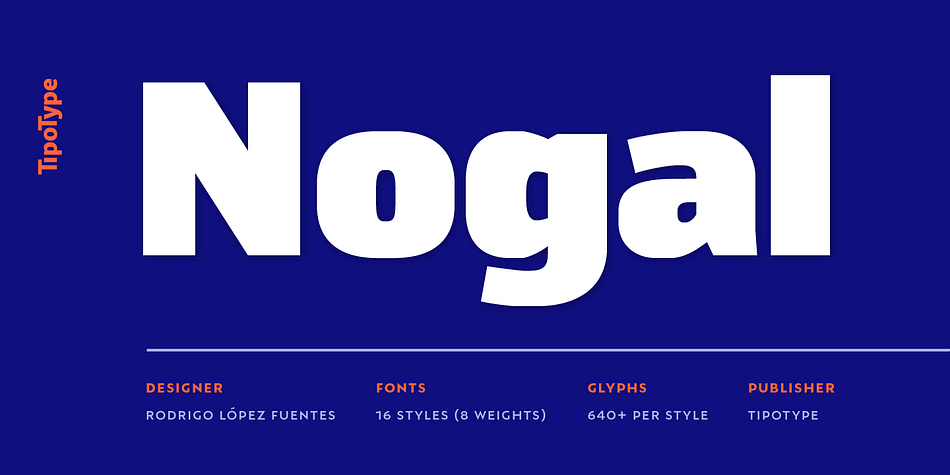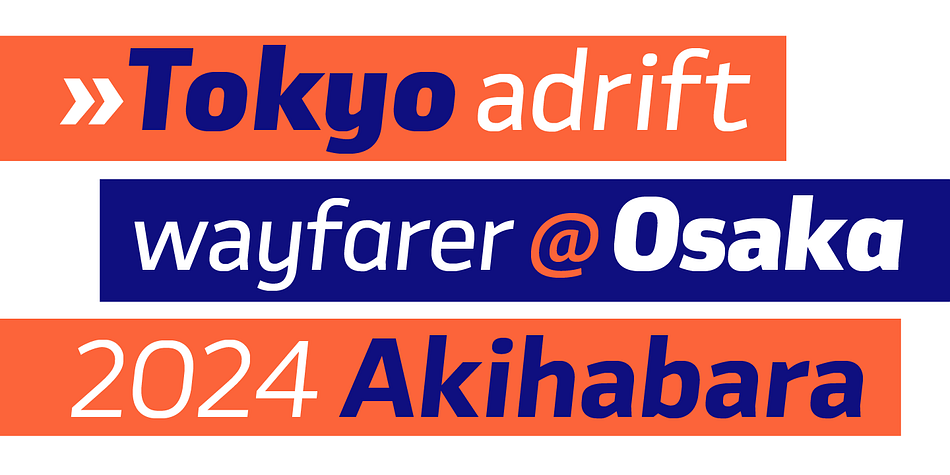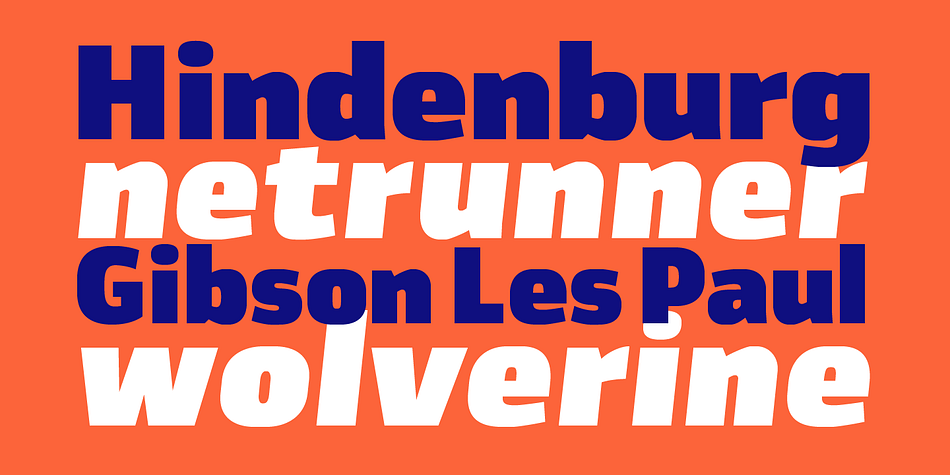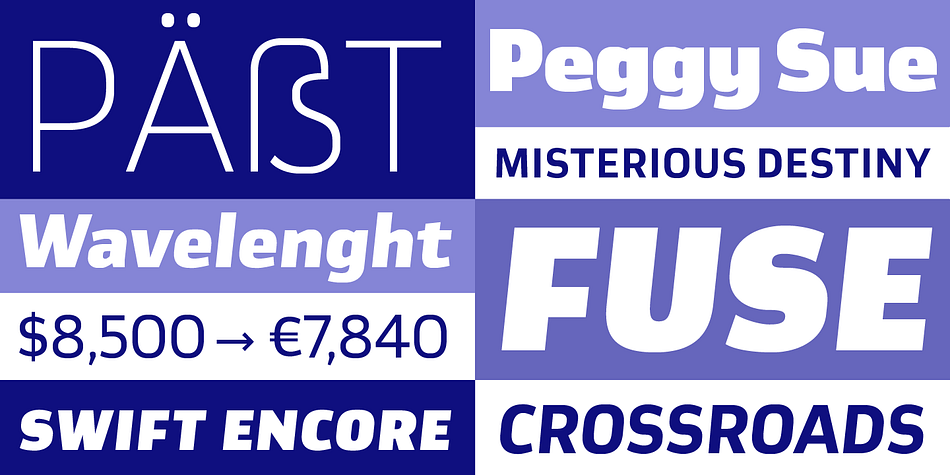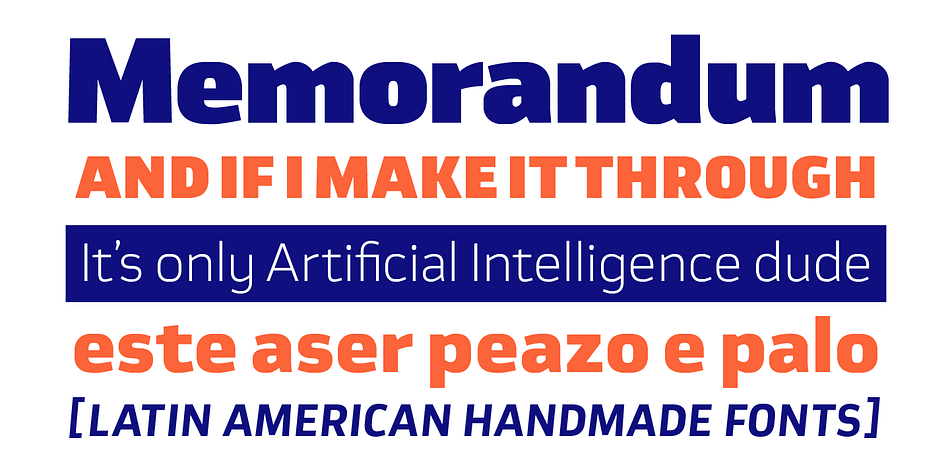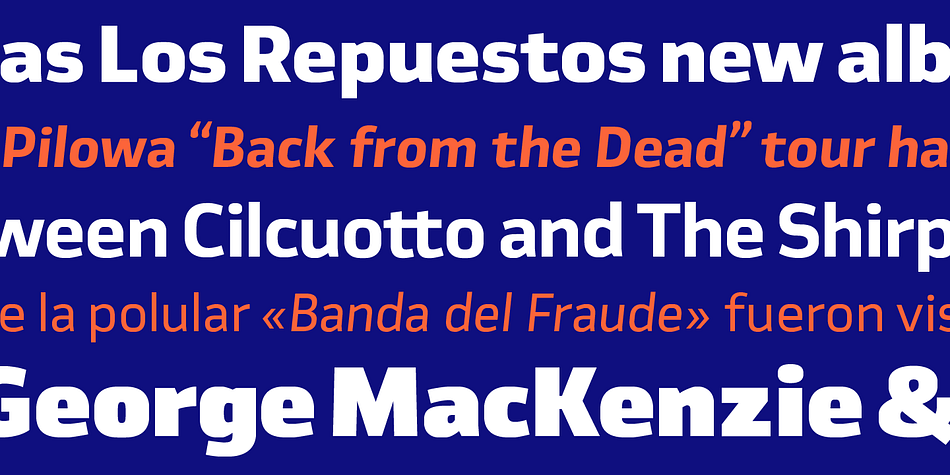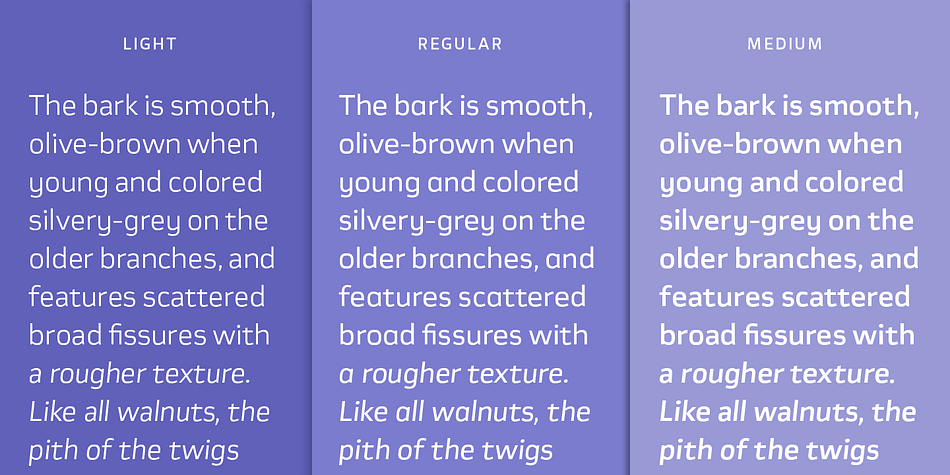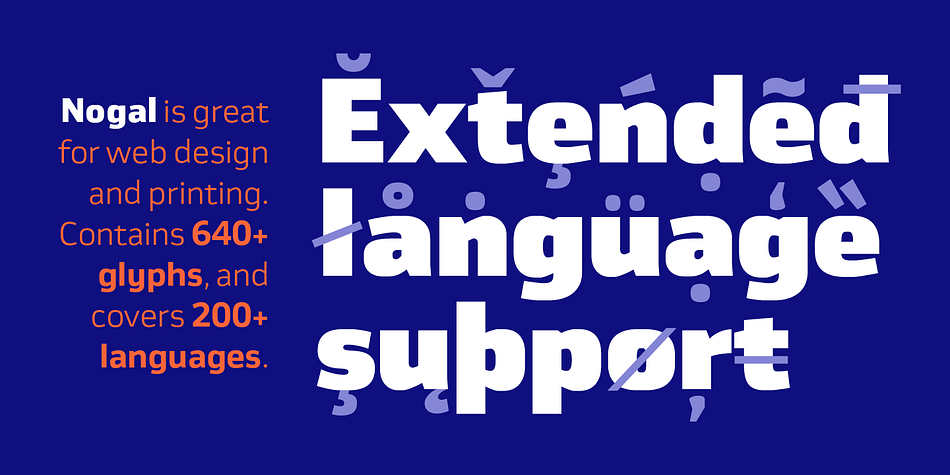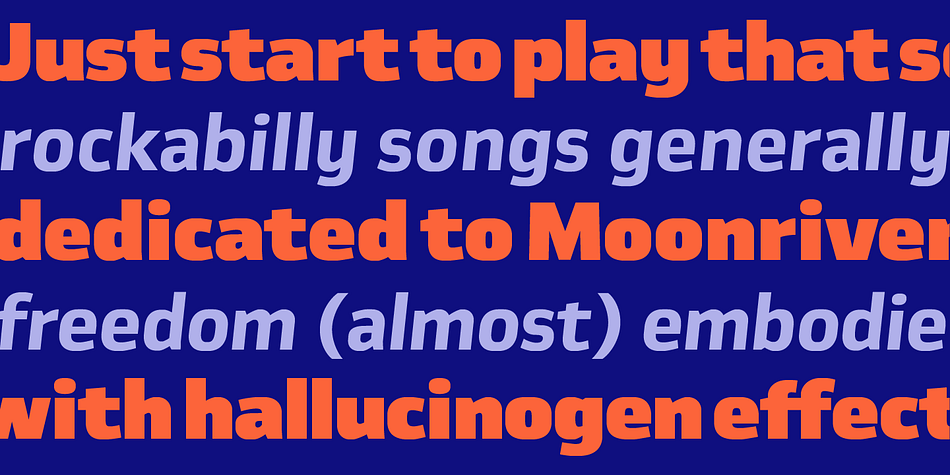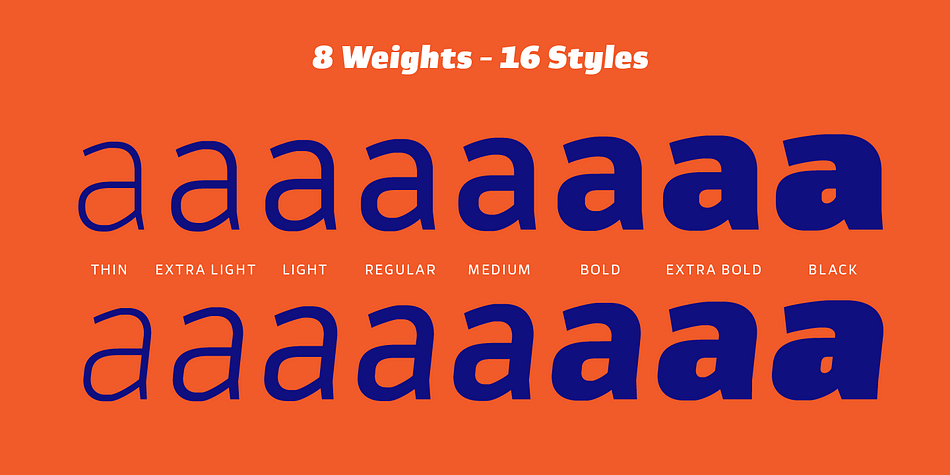
Nogal
Designed by Rodrigo Fuentes, Nogal is a sans serif font family. This typeface has sixteen styles and was published by TipoType.
Inspired by early 20th-century sans-serif typefaces, Nogal embodies a clean, geometric, and modern aesthetic. The complete type system comprises 16 styles: 8 upright and 8 italics, each containing over 640 glyphs.
This versatile typeface is ideal for a variety of design applications, including branding, editorial design, and digital interfaces. Its neutral and adaptable design lends itself well to a broad range of uses, from corporate identities to signage and wayfinding systems.
In summary, Nogal stands out for its timeless design, legibility, and modern sensibility, making it an exceptional choice for designers in search of a functional, dependable, and contemporary typeface for their projects.